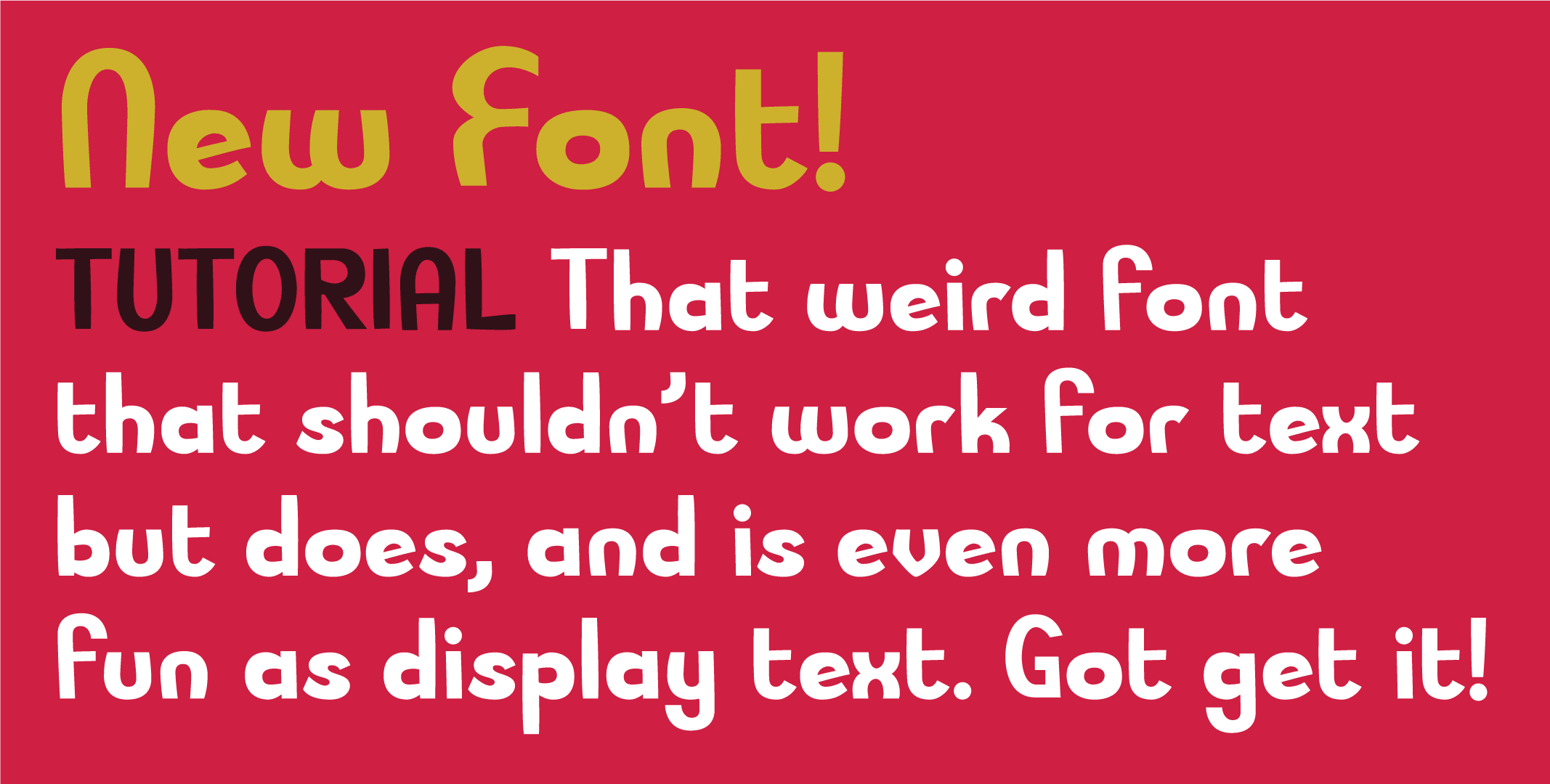
Tutorial
Tutorial is a hand display font family published by Interrobang Type.
I discussed with a colleague my recent type ventures, and when this one came up, I couldn’t identify a specific reference or inspiration for it. This is a rare occurrence for me, but once the DNA starts churning, I expect it to yield some awesome new species of type.
I think that expectation was met and more with this font. Be sure and check out the ligatures and alternates of this font, which are still evolving (and which any customer will receive the most recent version of.)
That weird font that shouldn’t work for text but does, and is even more fun as display text.